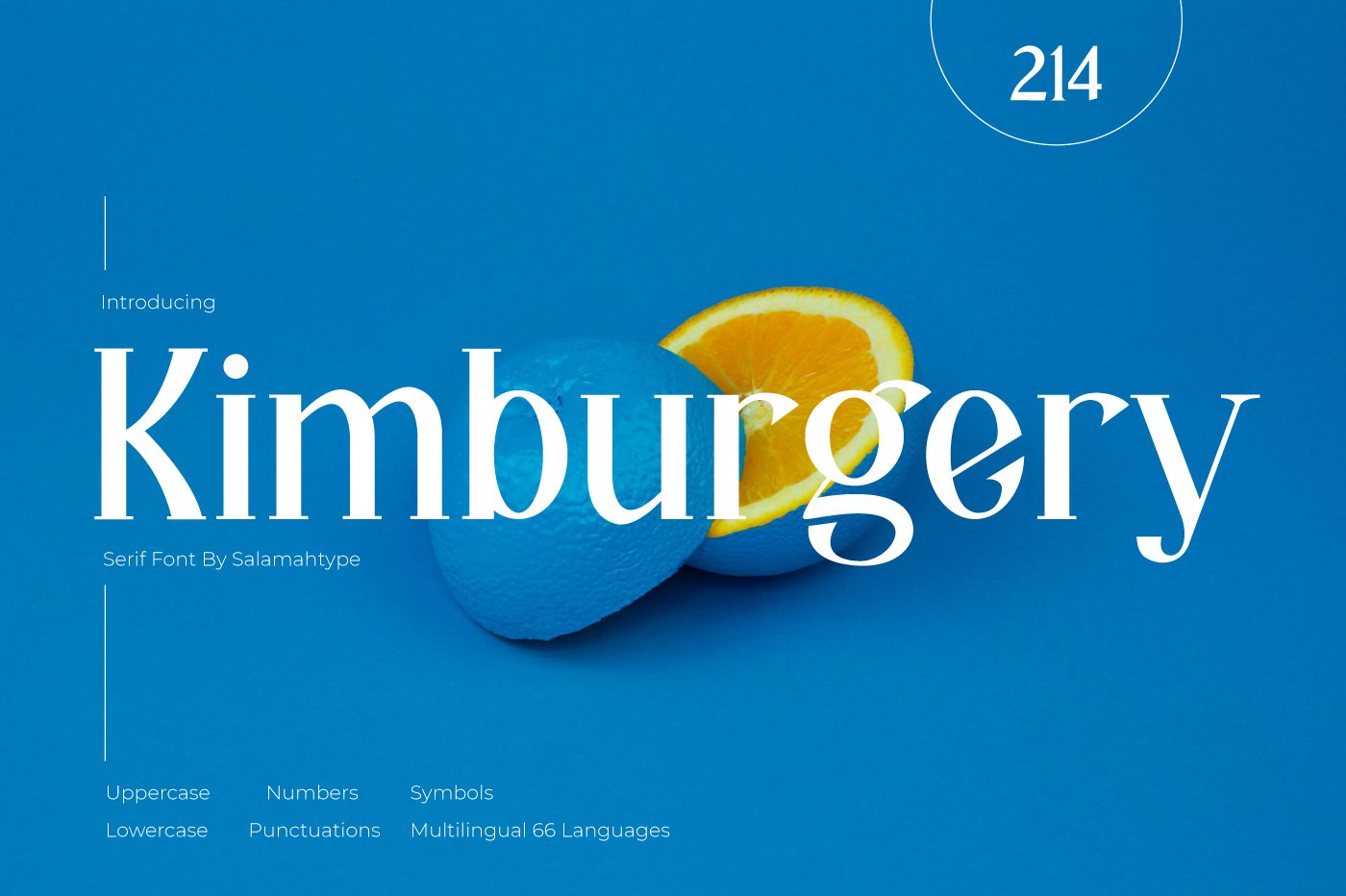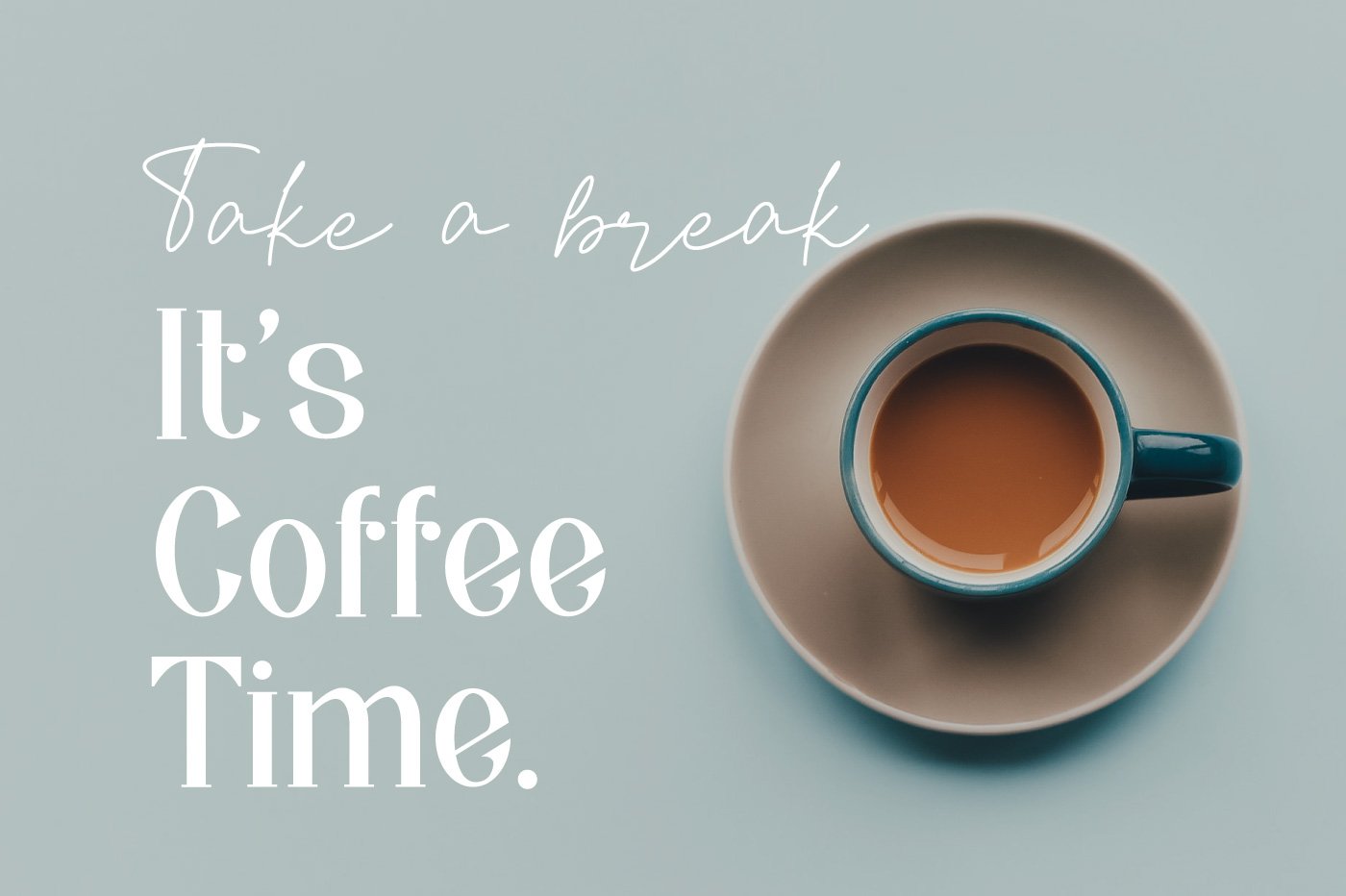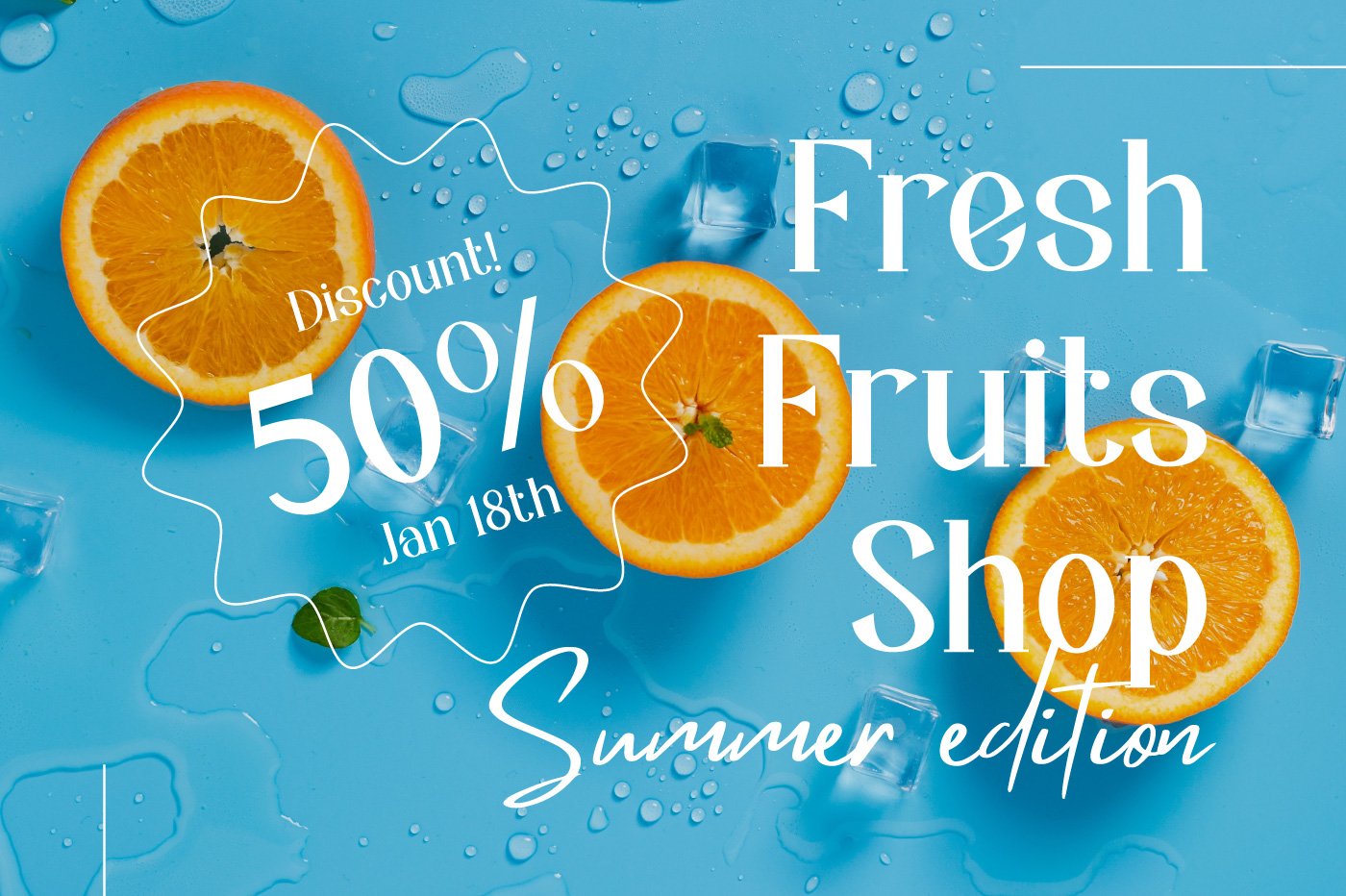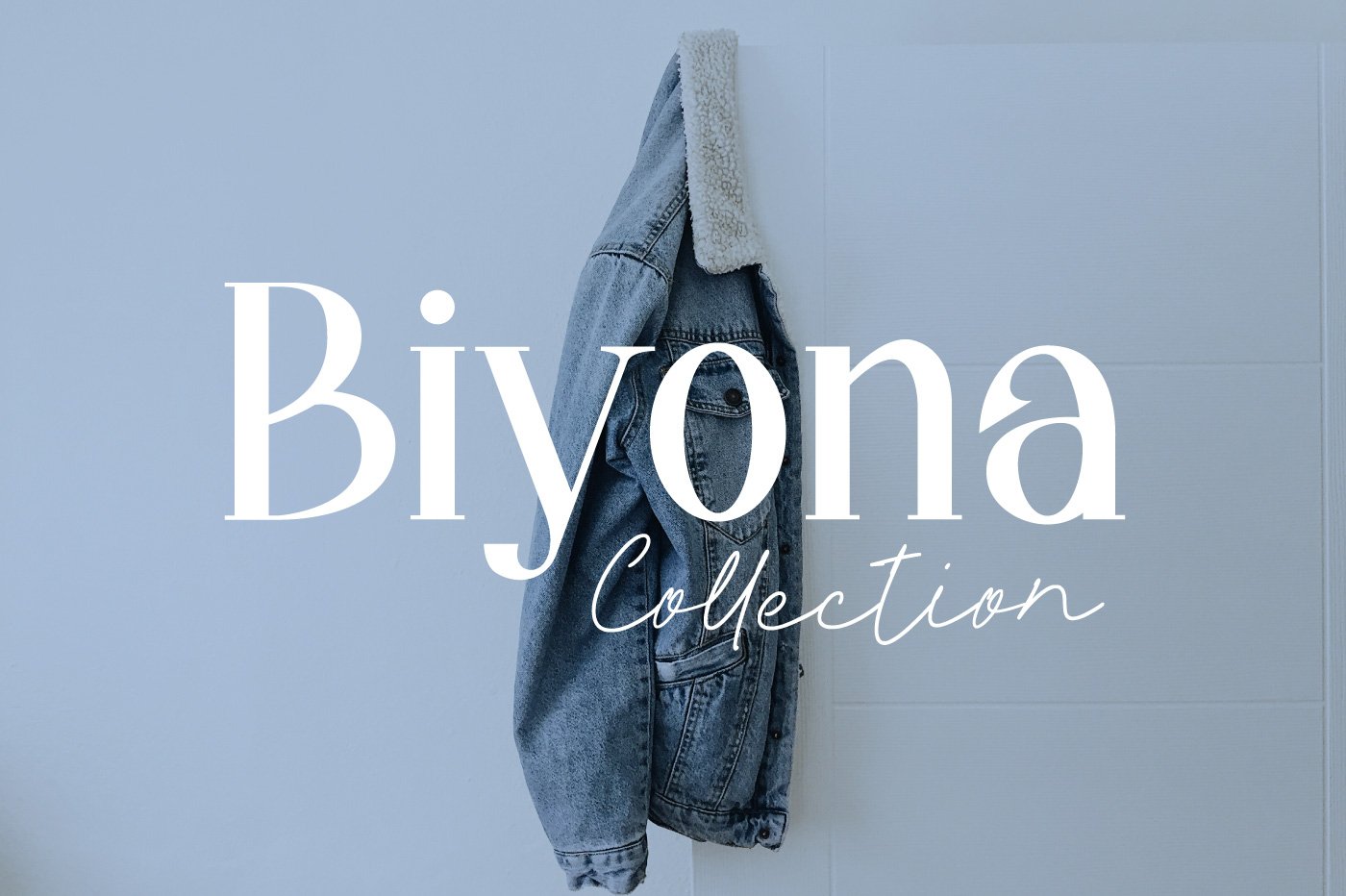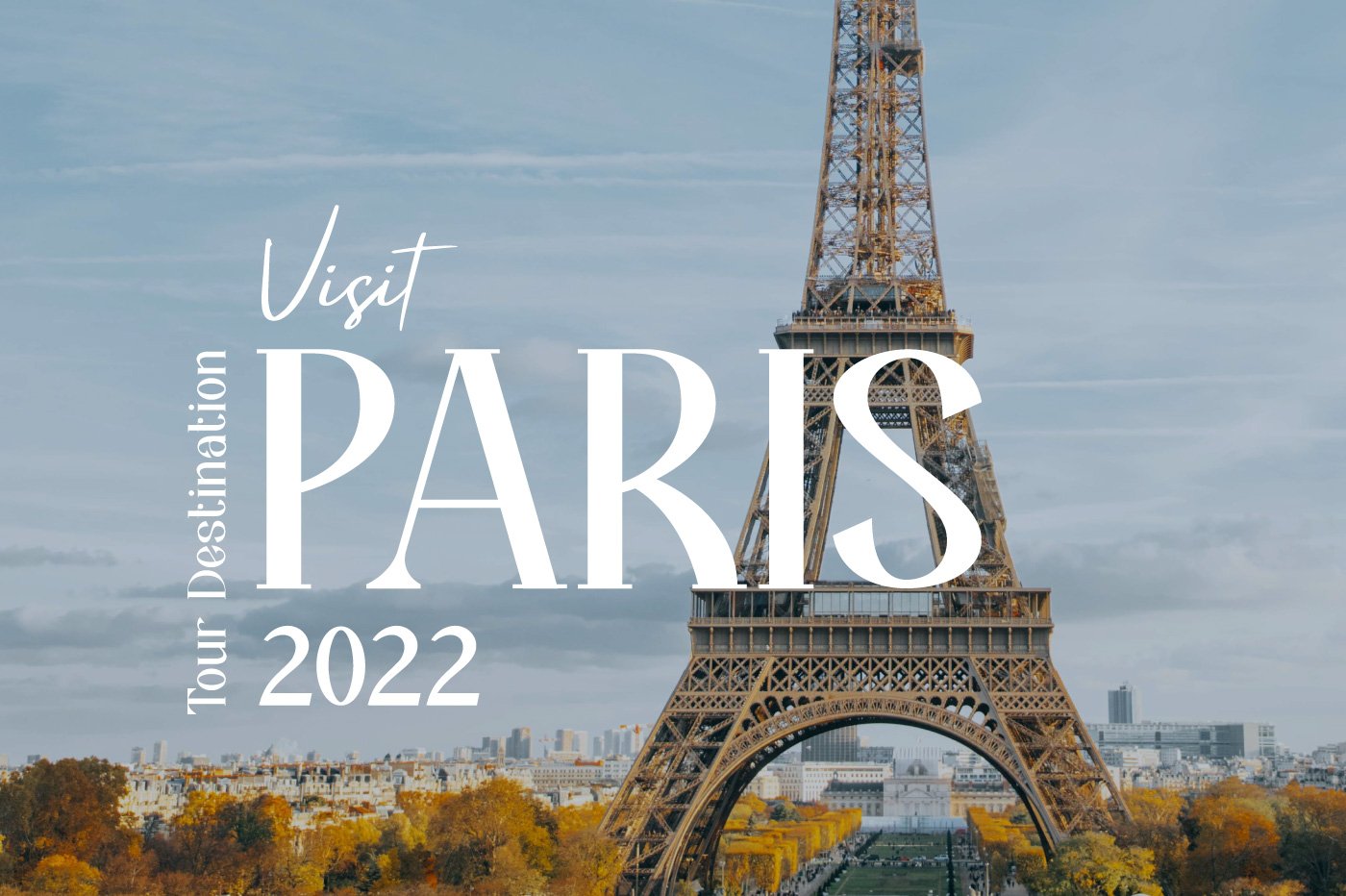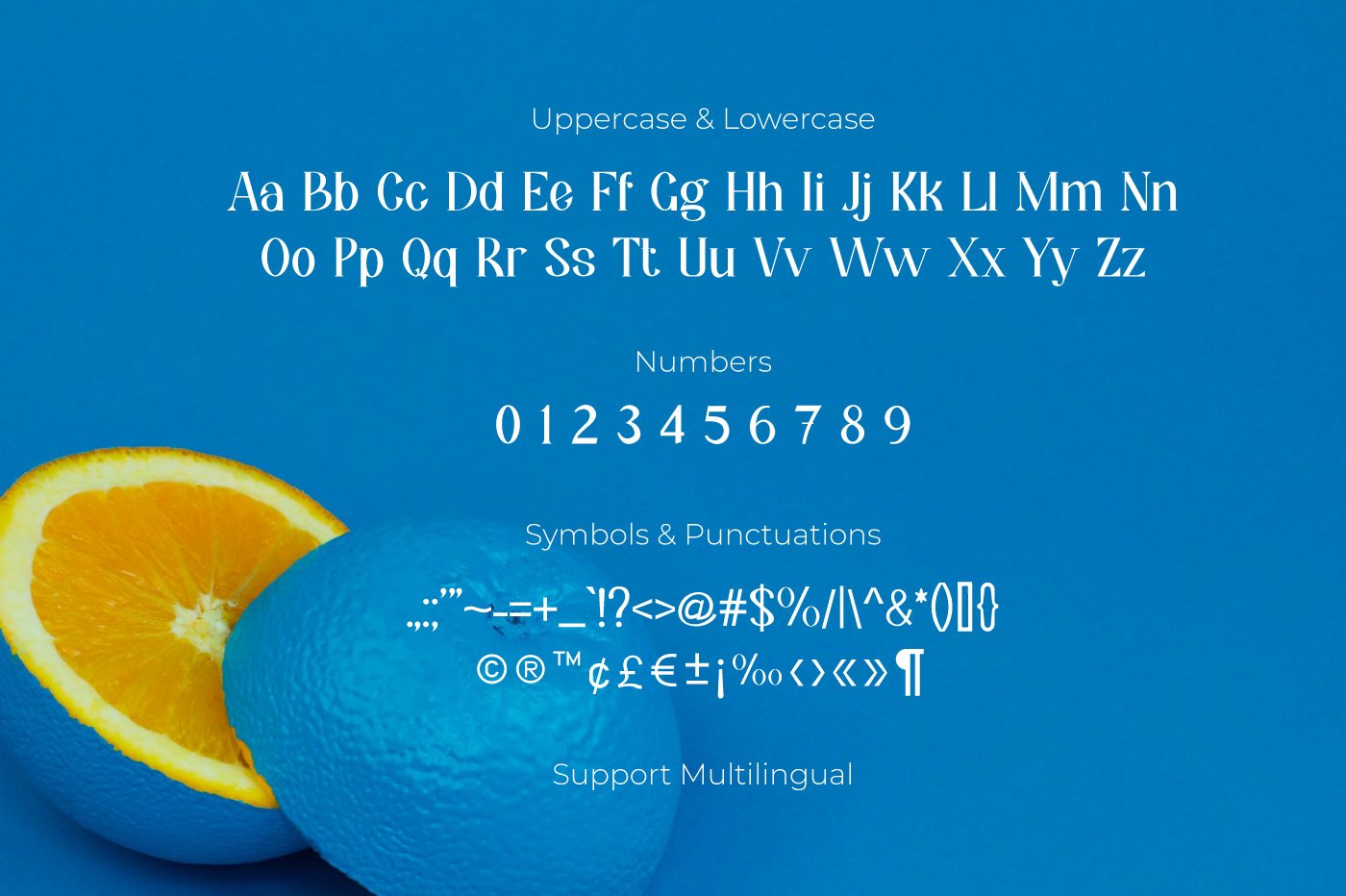
Kimburgery - Simple Serif Font Preview
Kimburgery - Simple Serif Font
About the Font
Kimburgery is a serif font with standard characters but looks more unique and beautiful when combined with a serif font. This font is perfect for logos, product packaging, product designs, branding projects, posters, flyers, social media posts, advertisements, labels, photography, and more.